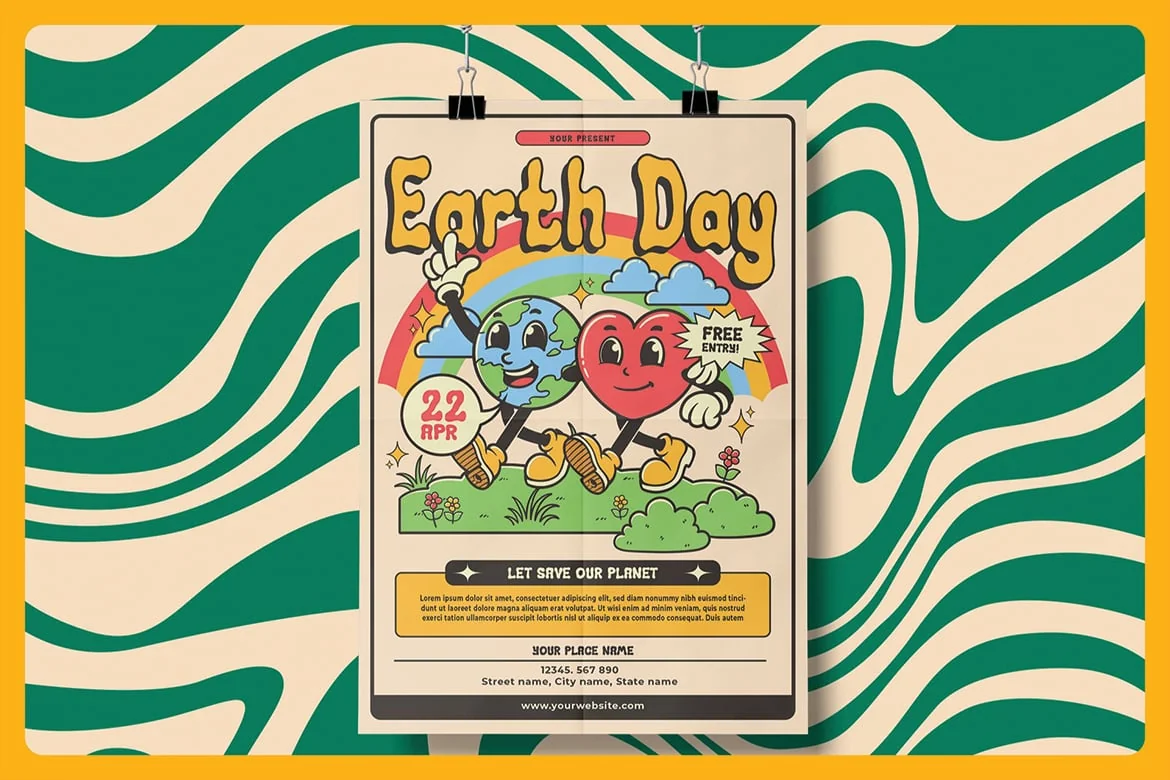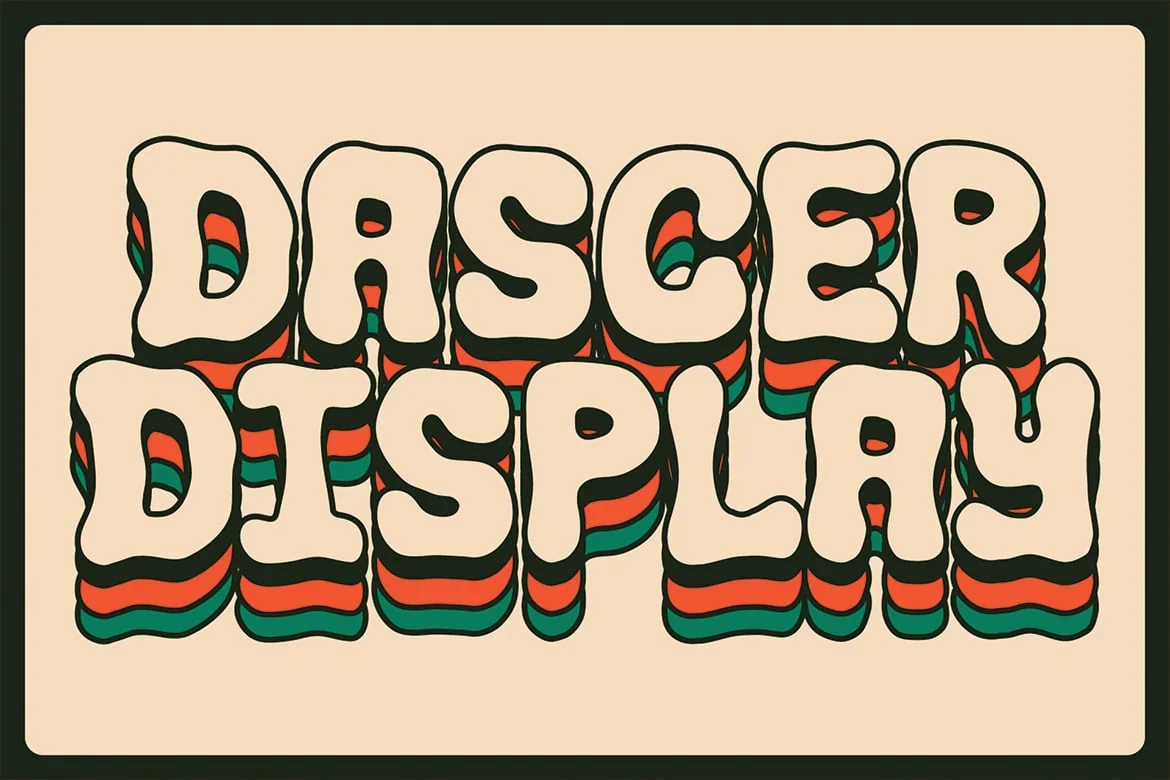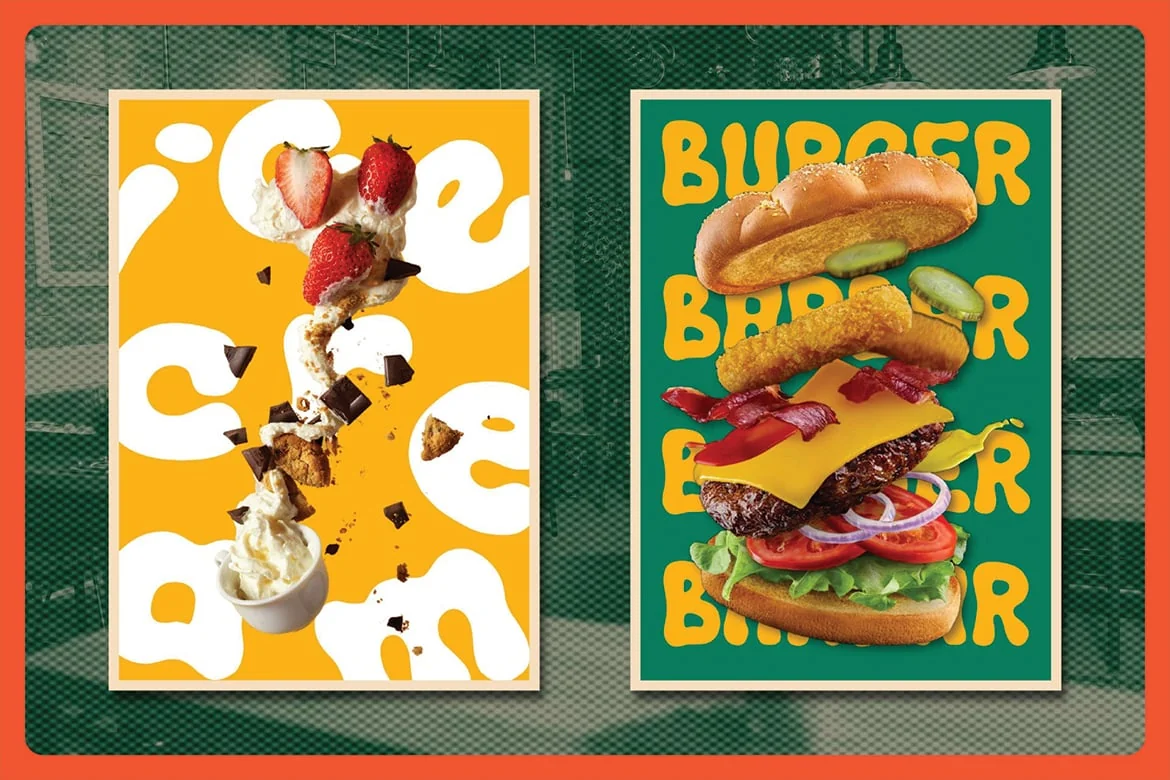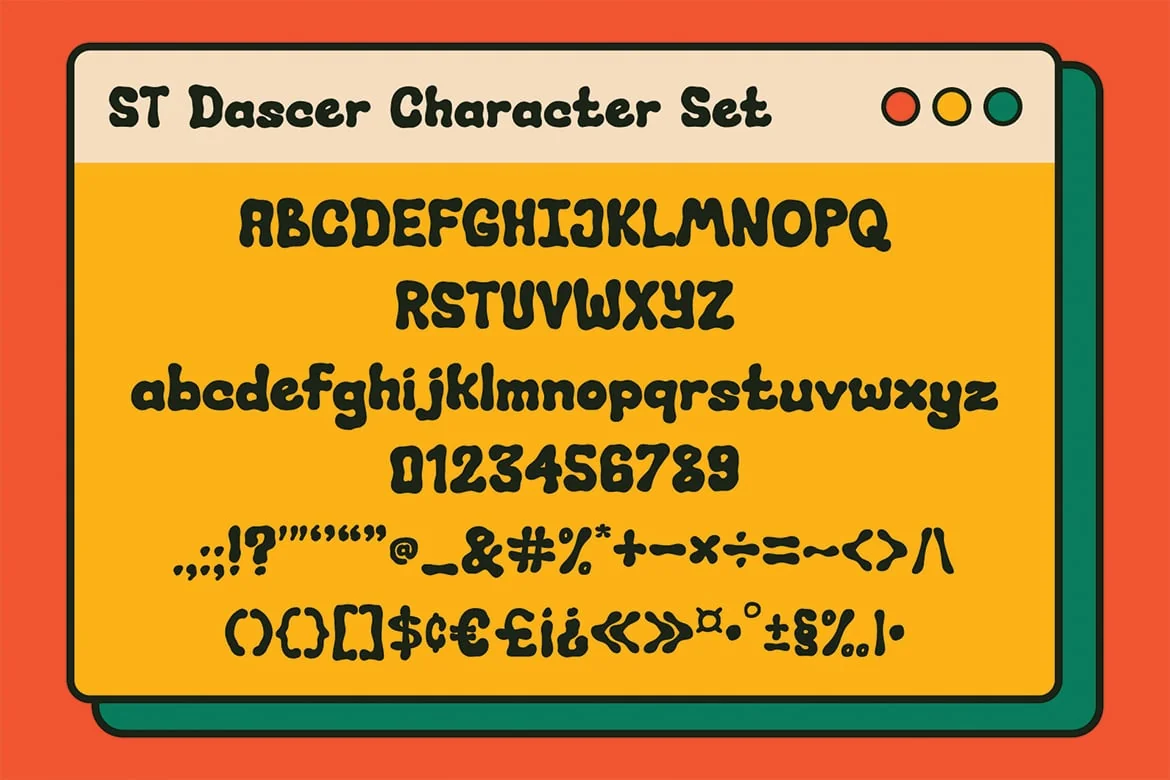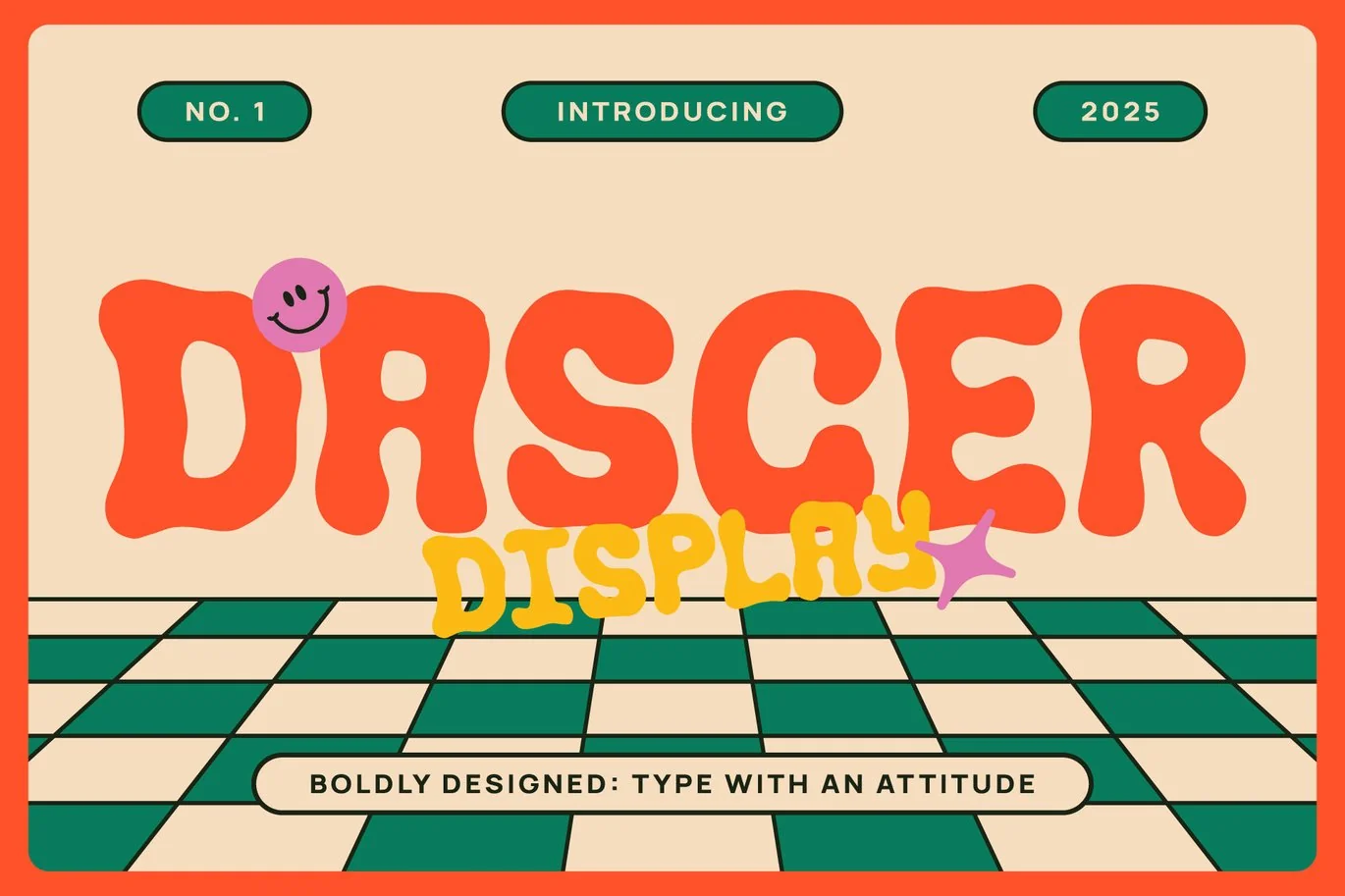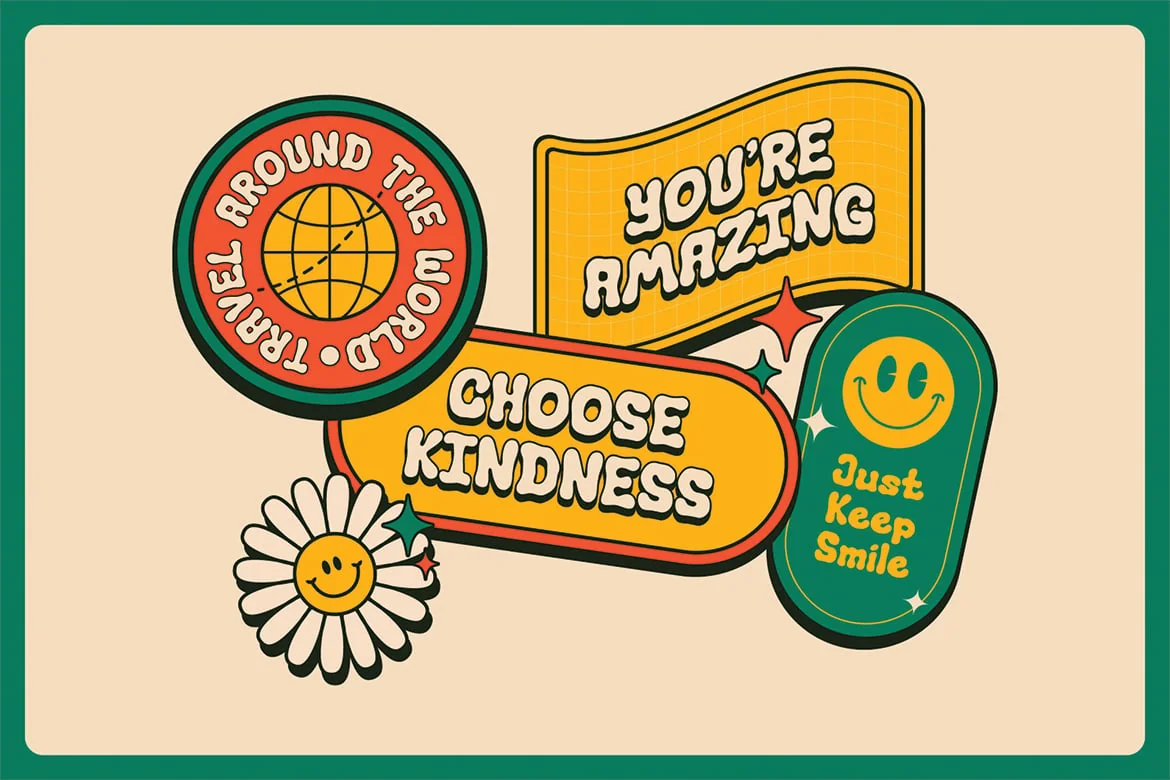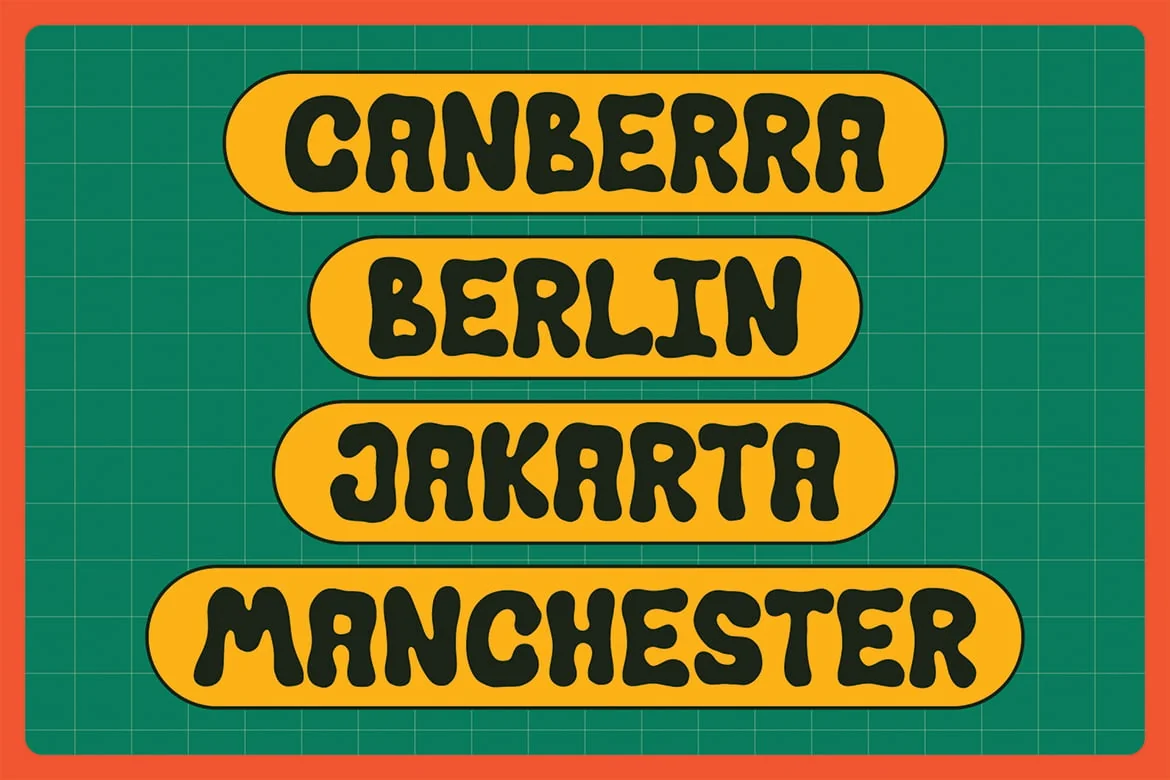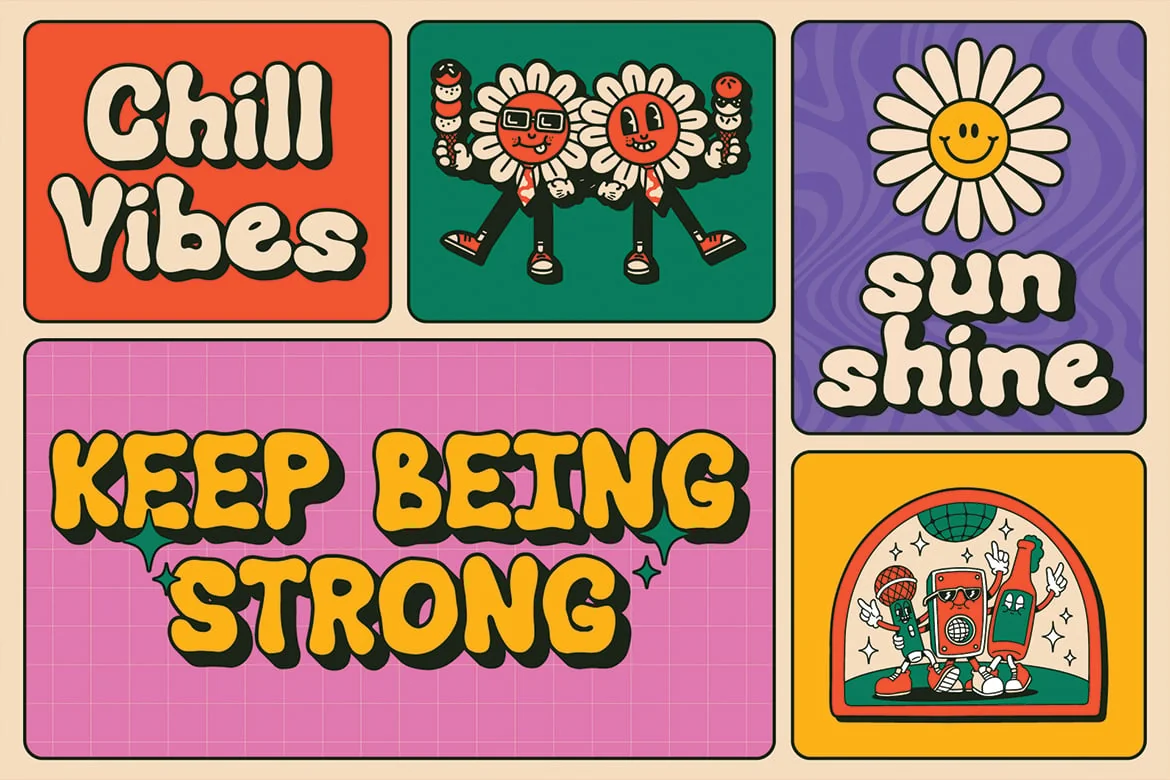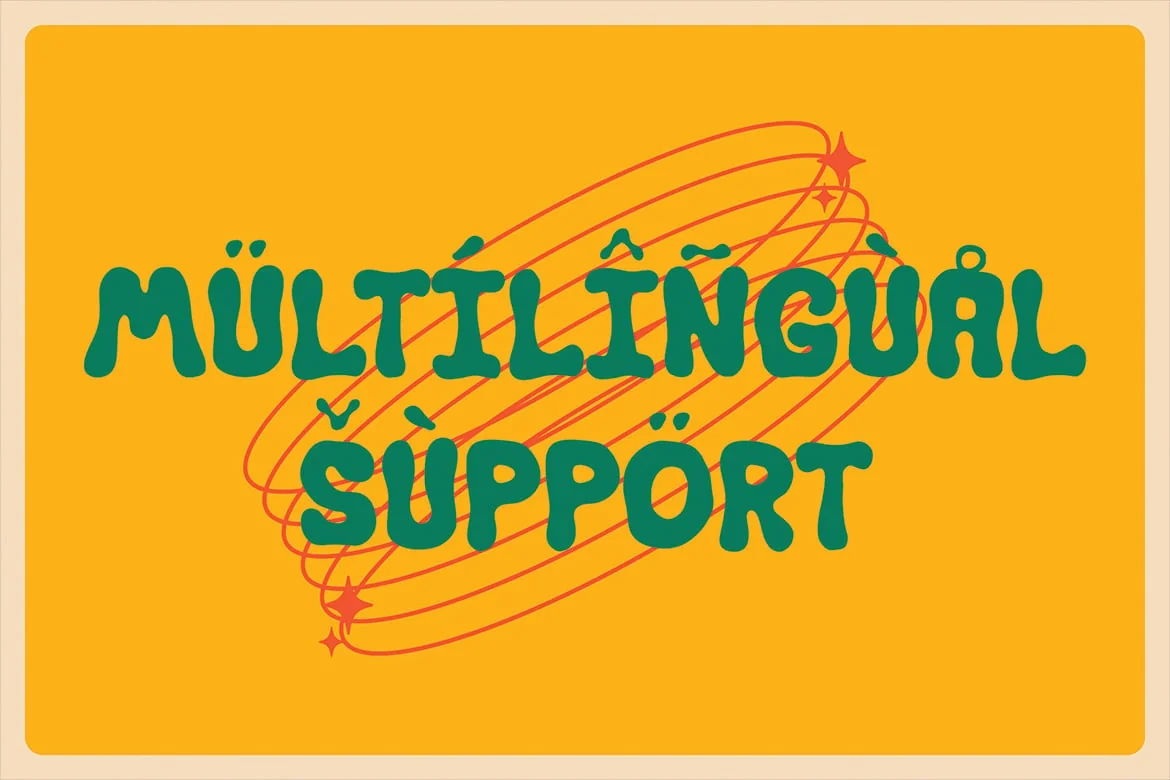
Dascer – A Groovy Display Typeface
Dascer – A Groovy Display Typeface Full of Energy!
Looking for a typeface that screams fun, boldness, and creativity? Meet Dascer, a groovy display font designed to bring a vibrant and retro touch to your projects!
Inspired by the funky and playful typography of the past, Dascer features smooth curves, dynamic shapes, and a lively personality that makes your design stand out. Whether you’re working on posters, branding, merchandise, or social media graphics, this typeface will add that extra spark of uniqueness.
With a mix of vintage charm and modern versatility, Dascer is perfect for designers who love expressive and eye-catching typography. The well-crafted letterforms ensure seamless readability while maintaining its distinctive, funky appeal.
- Uppercase & Lowercase Letters